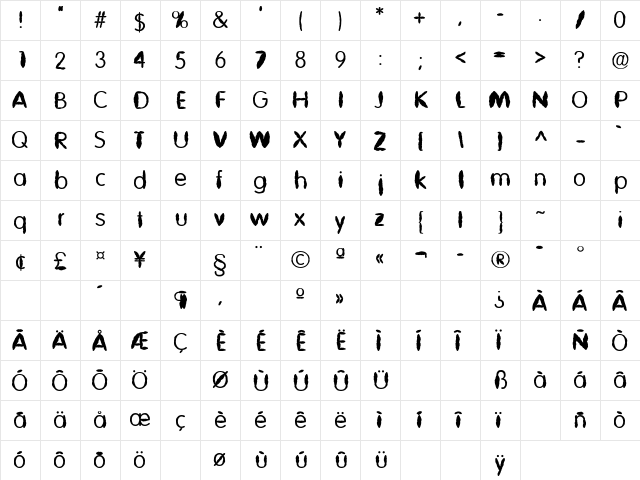
Gnarled SF Regular
Design Context for Gnarled SF Typeface
Gnarled SF is a composed and adaptable typeface that performs quietly and consistently across a wide range of design contexts.